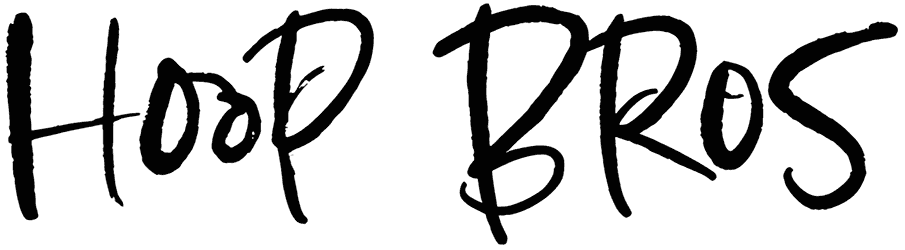
Hoop Bros Font
Taking advantage of a shiny script font, the same as Hoop Bros, is one of the main requirements of designing captivating graphic content. Since this hip hop font comes with crooked and rounded letters, it can easily provoke a sense of dread, tenderness, dynamism, and personalization in the audience’s minds and persuade them to follow all of your creative ideas. We recommend utilizing this masterpiece in your business cards, digital banners, magazines, and video game brochures.